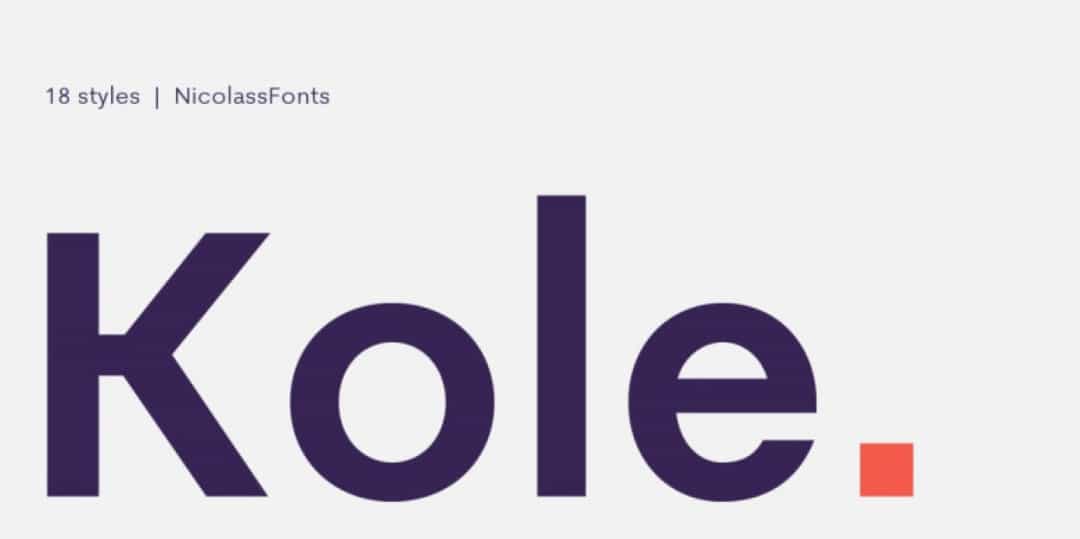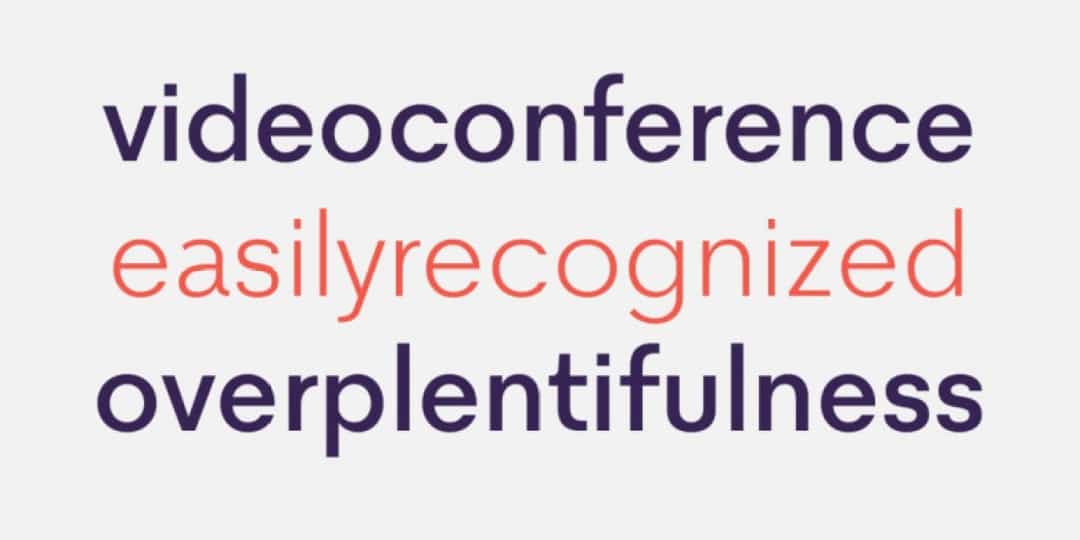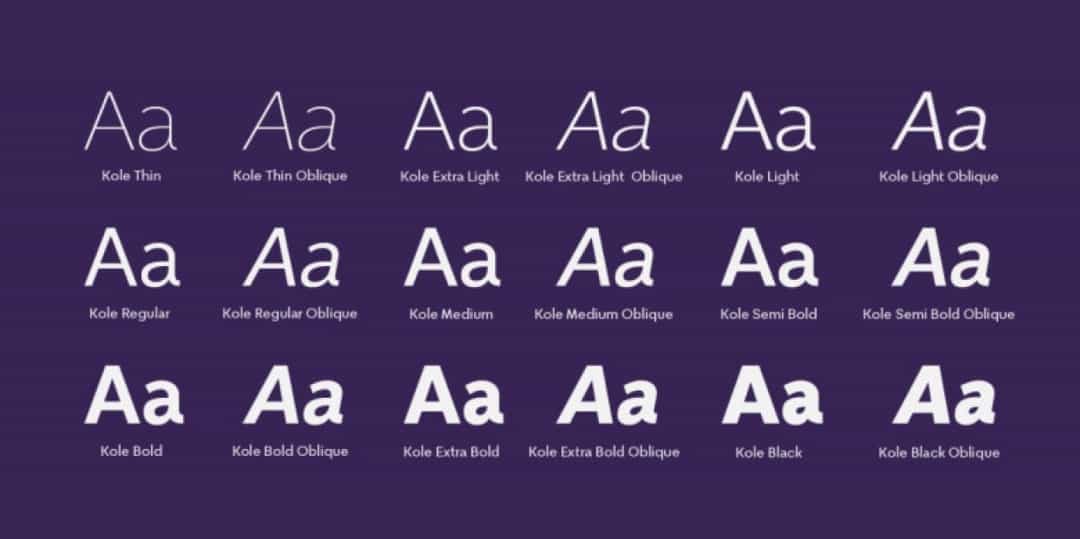
Nikolay Savchuk created Kole font with 18 weights. Ideal for packaging, signage and branding software as well as editorial design screen, web designs as well as creating headlines or logotypes, Kole family is perfect for packaging design as well as for screen and web designs to create headlines or logotypes.